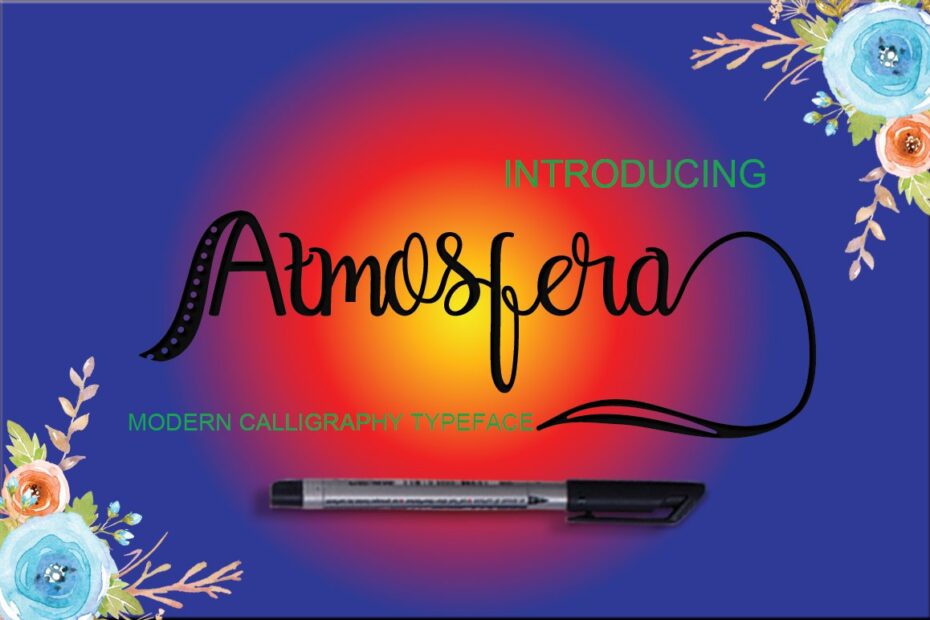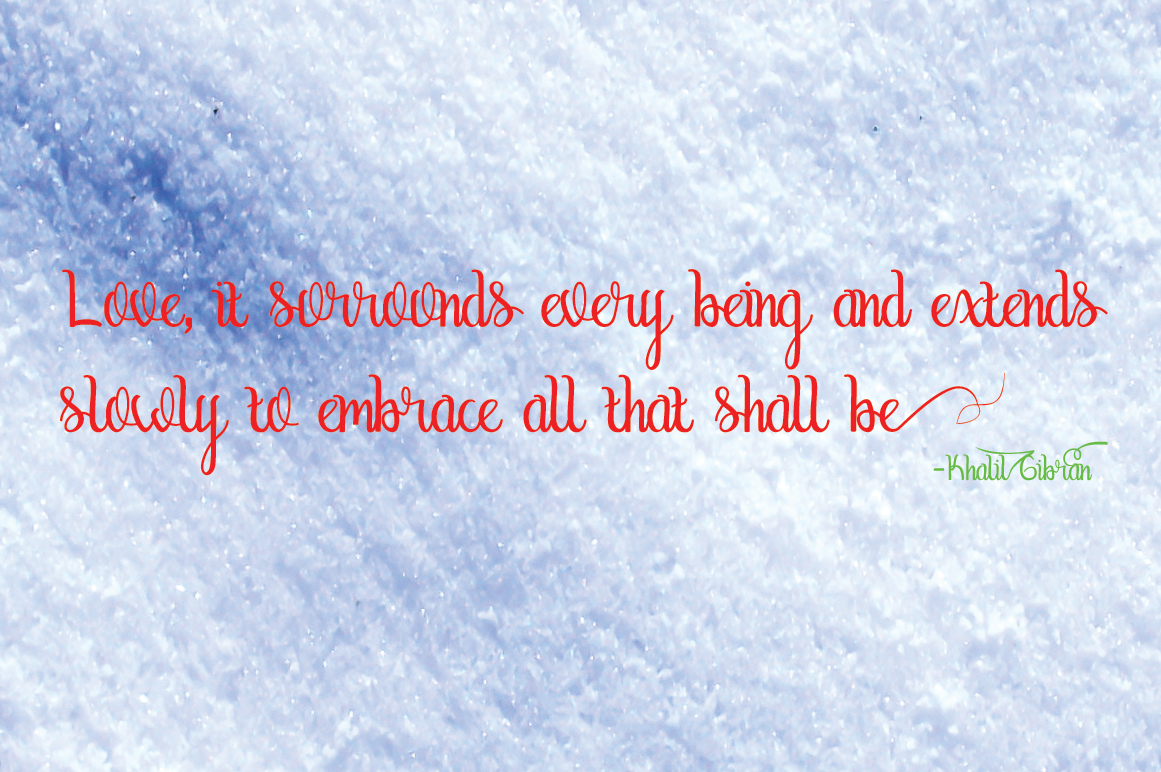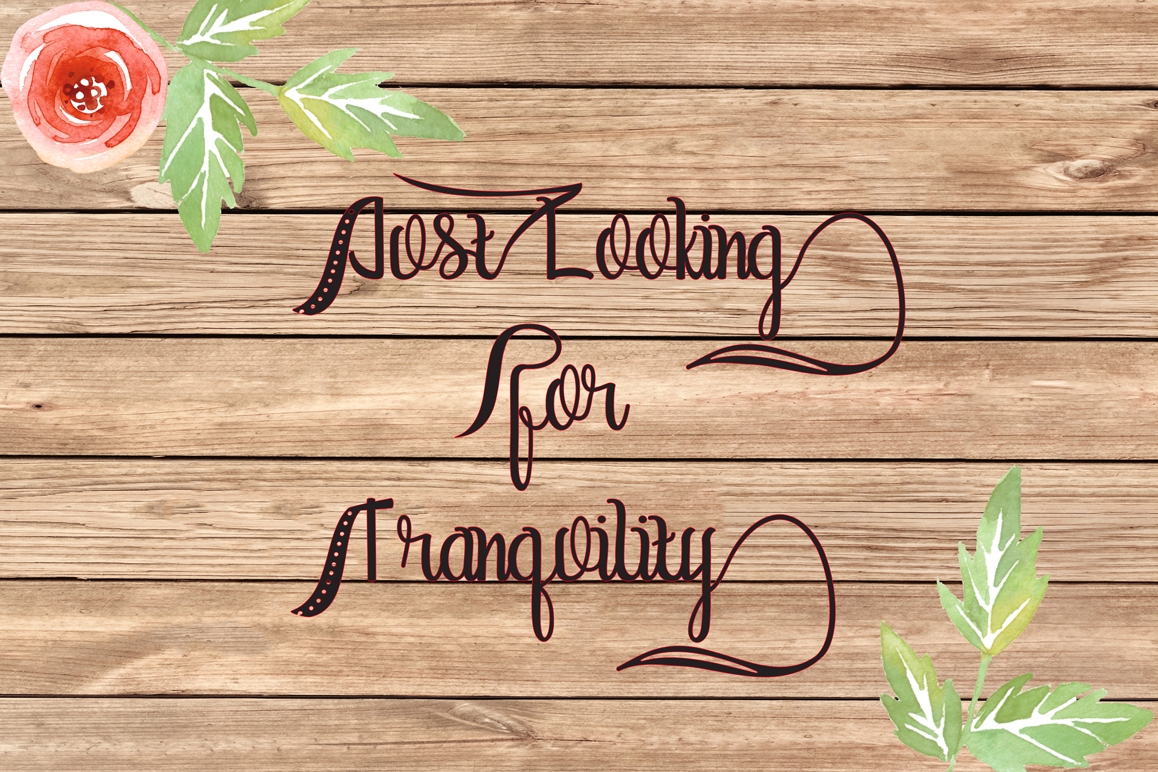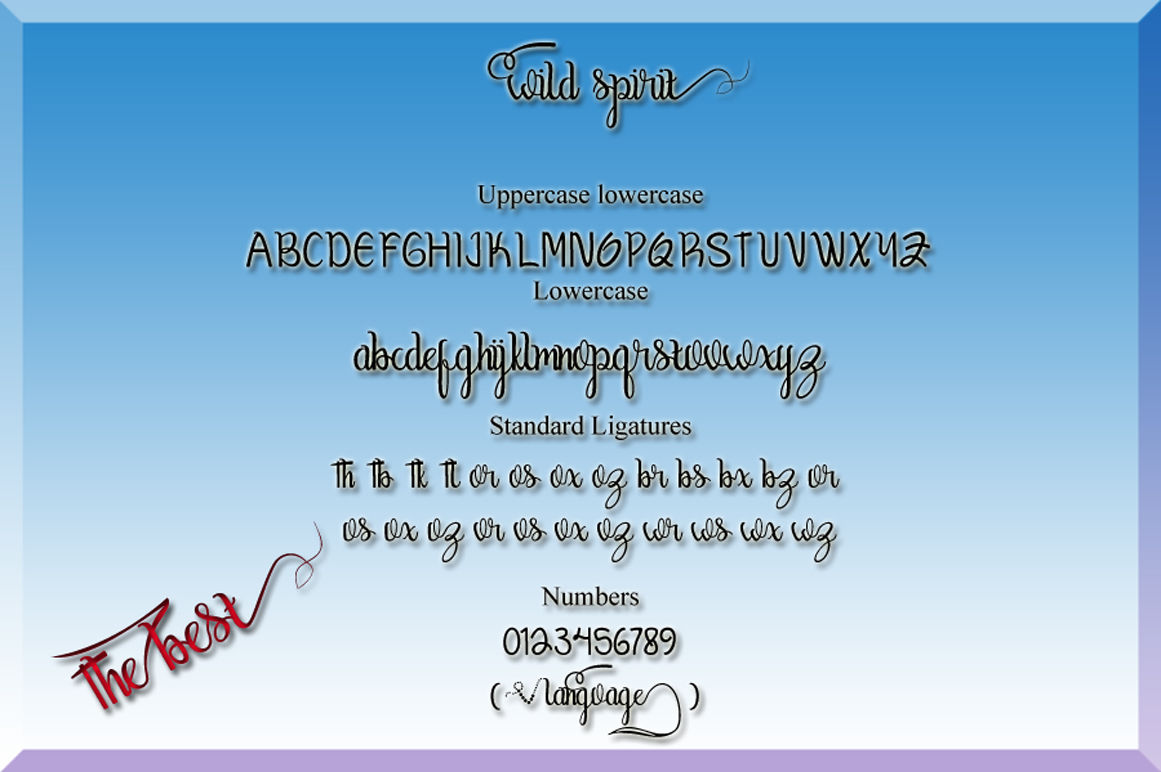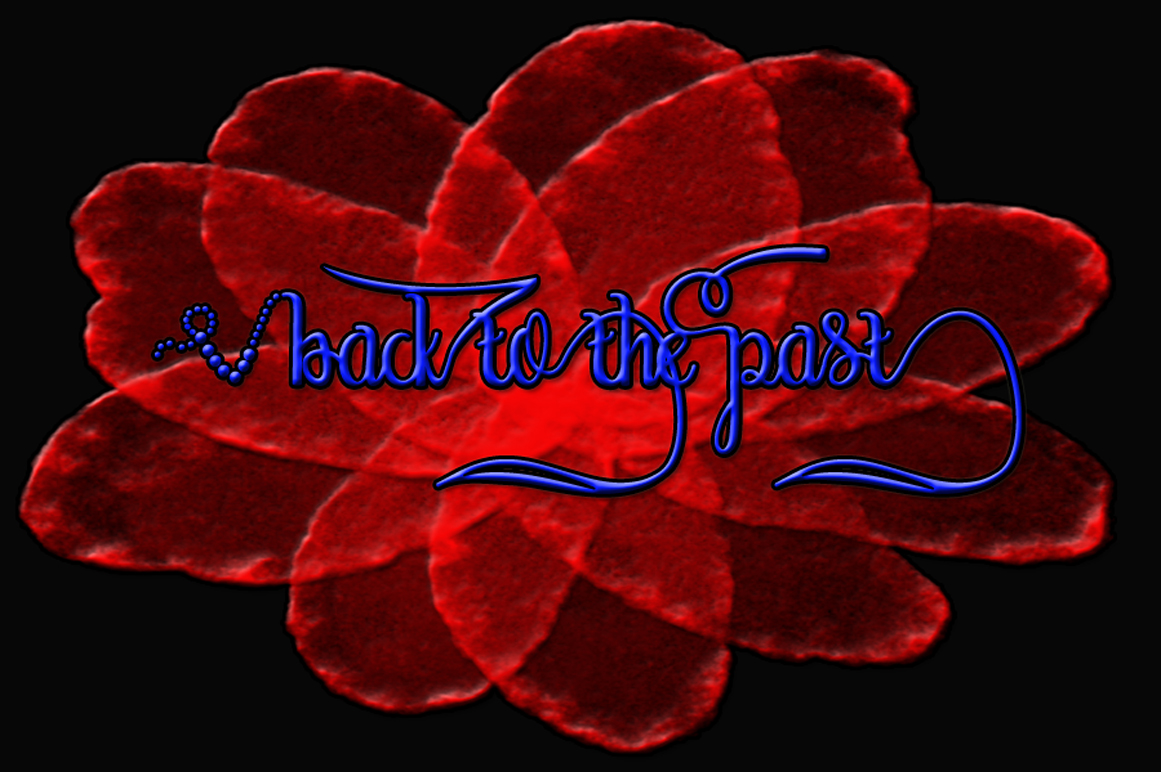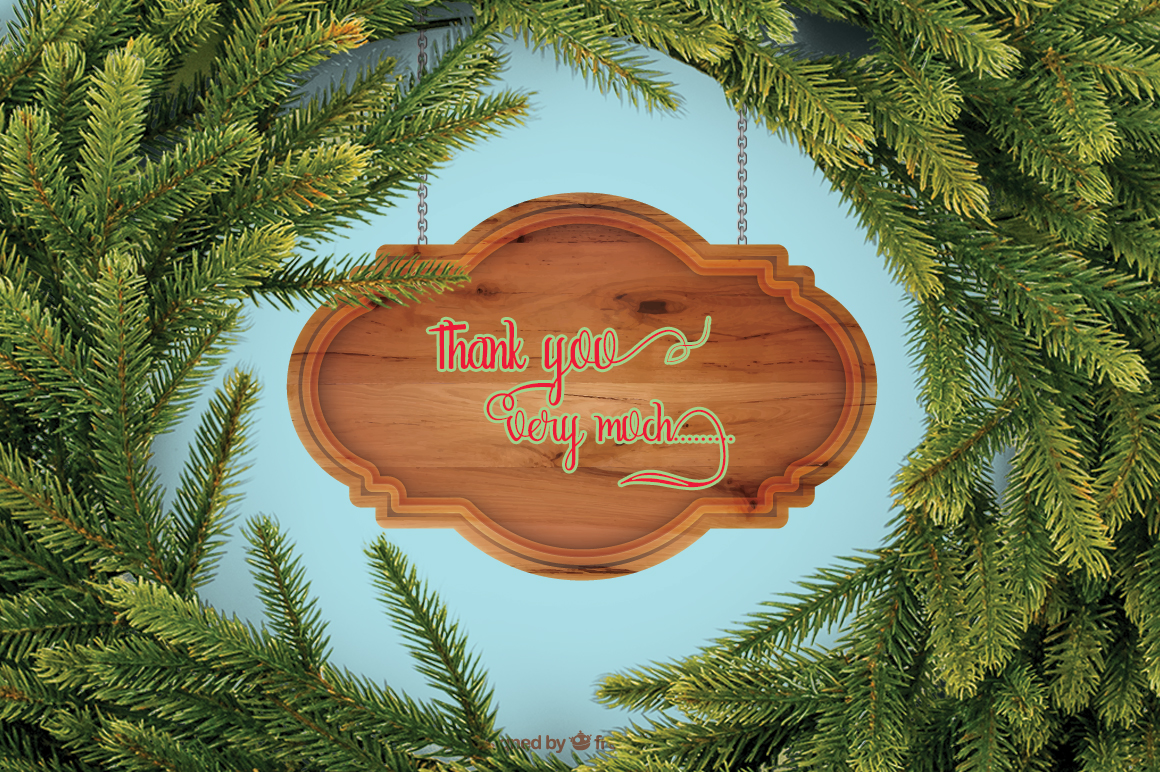
The Stroke of Inspiration
Have you ever sat with a blank canvas, a blank page, or a blank computer screen, waiting for that spark of creativity to strike? It’s a feeling we’ve all experienced at some point, and it’s what drives us to create something truly unique and special. For designers, this moment is often the starting point for a new project, and the right font can make all the difference.
Introducing Atmosfera Font, a beautiful, handwritten font created with a fine brush. Its purpose is to evoke the feeling of a warm, sunny day, with every letter and stroke carefully crafted to transport you to a place of tranquility and inspiration. Whether you’re designing a logo, a brochure, or a website, Atmosfera Font is the perfect choice for adding a touch of elegance and sophistication to your work.
For designers, Atmosfera Font is a valuable tool that can help bring your ideas to life in a way that feels authentic and genuine. Its unique, handwritten style sets it apart from more traditional fonts, and its versatility makes it perfect for a wide range of projects and applications.
Atmosfera Font Key Features
- Font Family: Atmosfera
- Font Style: Script, Handwritten
- Character Set: Latin, Cyrillic, Greek, Extended Latin, Cyrillic Extended
- Language Support: Multilingual support for English, Spanish, French, German, Italian, Portuguese, and many more
Atmosfera Font Review
I’ve had the chance to work with Atmosfera Font on a few projects, and I must say it’s a unique and interesting choice for designers looking for something different.
- Unique aesthetic: Atmosfera Font has a distinct, futuristic feel that can add a touch of sophistication to your designs.
- High legibility: Despite its unusual appearance, the font is surprisingly easy to read, making it suitable for a wide range of applications.
- Flexibility: Atmosfera Font comes in a variety of weights and styles, allowing designers to customize their designs to fit their needs.
- Limited compatibility: Some users have reported issues with Atmosfera Font not rendering correctly in certain software or on certain platforms.
- Overuse: The font’s unique style can quickly become overwhelming if overused, so it’s essential to use it sparingly and in moderation.
- Distractions: Atmosfera Font’s futuristic feel can sometimes distract from the content, making it challenging to convey your message effectively.
Overall, Atmosfera Font is a solid choice for designers who want to add some visual interest to their work. While it has its limitations, the right use of this font can result in stunning, eye-catching designs that leave a lasting impression.
Atmosfera Font is a versatile font that can be used in a variety of designs, including:
- Brand identities
- Marketing materials
- Editorial content
- Wedding invitations
To get the most out of Atmosfera Font, experiment with different font sizes and styles to create visual interest and emphasis.